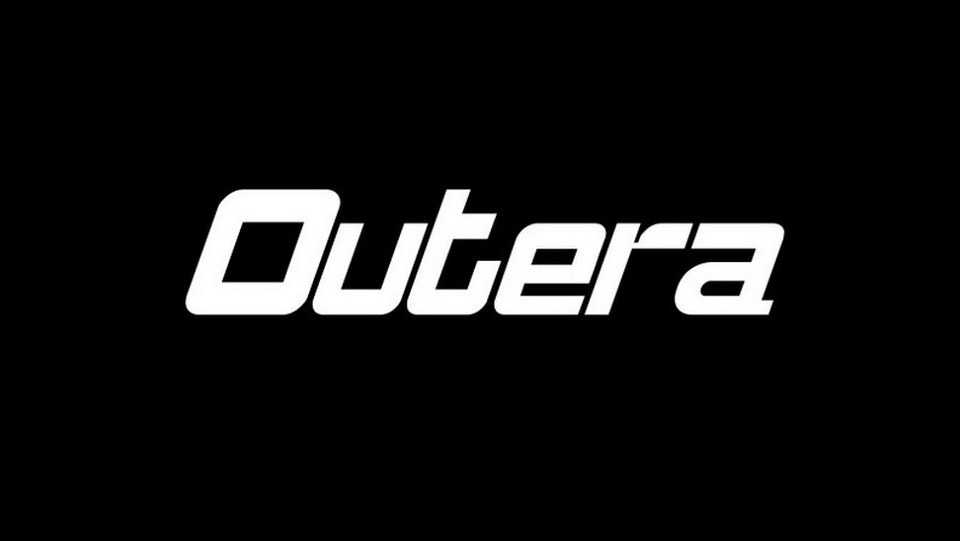
Download Outera typeface, an experimental variable font with three axis: weight, contrast and slant. Outera with its variety of styles is perfect for display use, impact headlines, eye-catching posters and bold messages.
Designer: Dominik Szabó